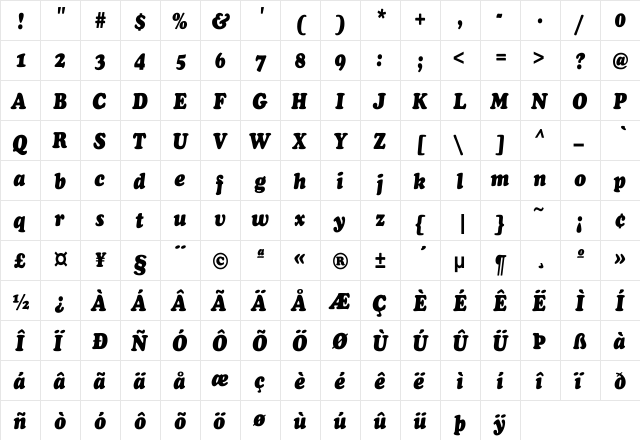
CooperCnd-Heavy-Italic Regular
Design Context for CooperCnd-Heavy-Italic Typeface
CooperCnd-Heavy-Italic takes a measured approach to typography — its balanced proportions and neutral character make it a reliable workhorse for both digital and print work. Its italic angle brings a sense of urgency and motion to the letterforms.
Pro Tip: Try CooperCnd-Heavy-Italic for annotation and caption copy alongside an upright companion — the contrast in angle creates a dynamic but ordered typographic system.